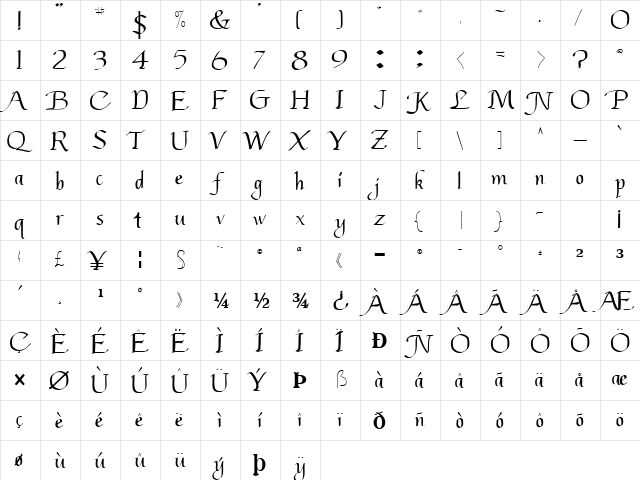
LightWave114 Regular
Design Context for LightWave114 Typeface
LightWave114 takes a measured approach to typography — its balanced proportions and neutral character make it a reliable workhorse for both digital and print work. Its slender proportions lend an understated elegance to any composition.